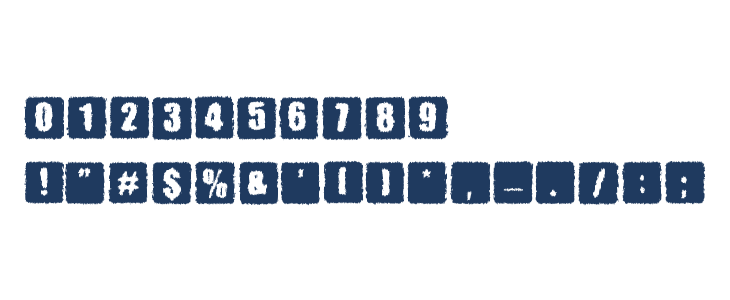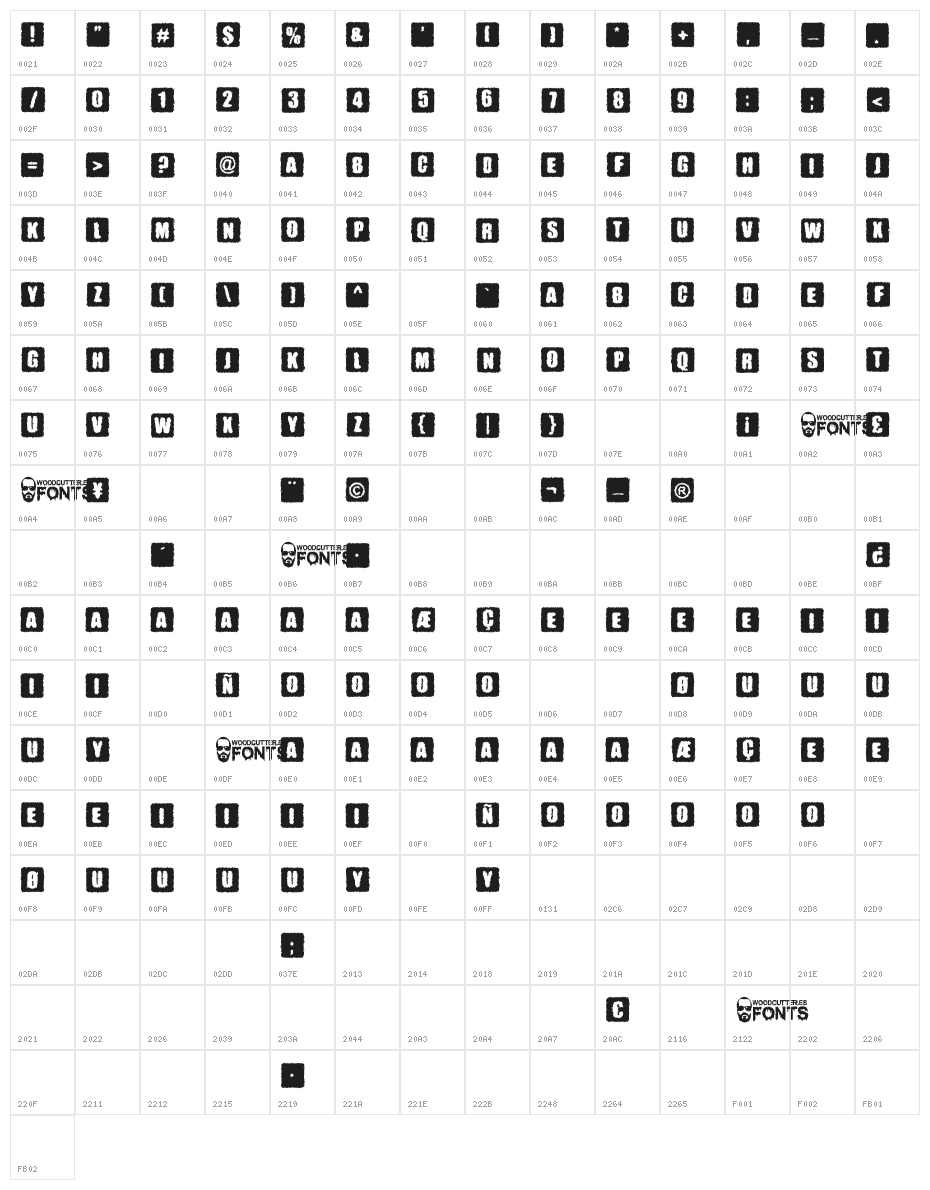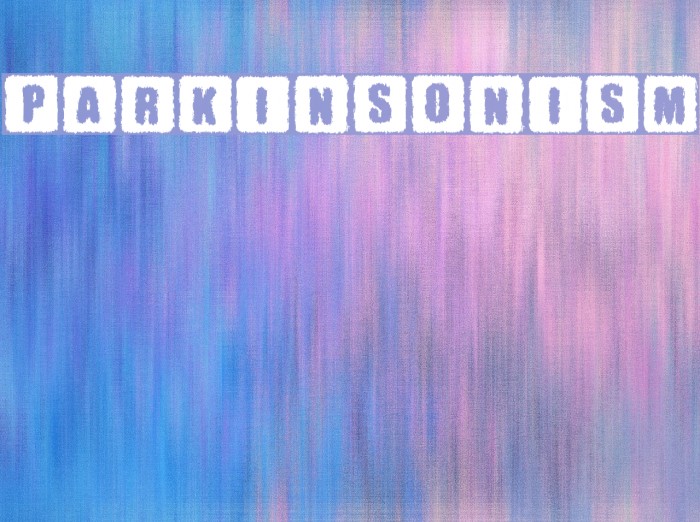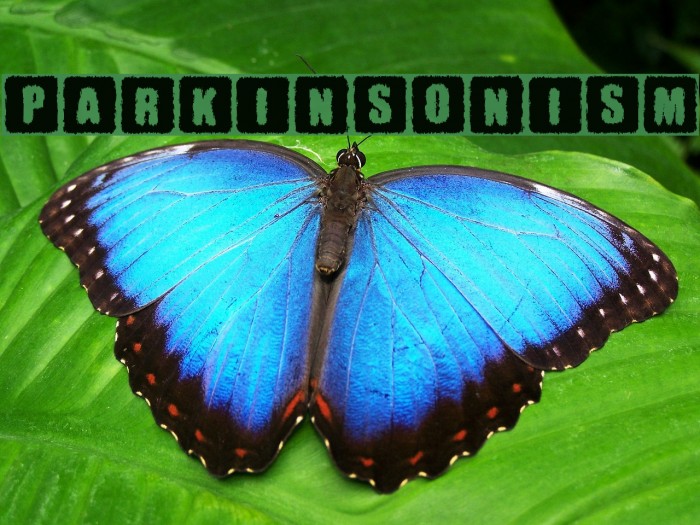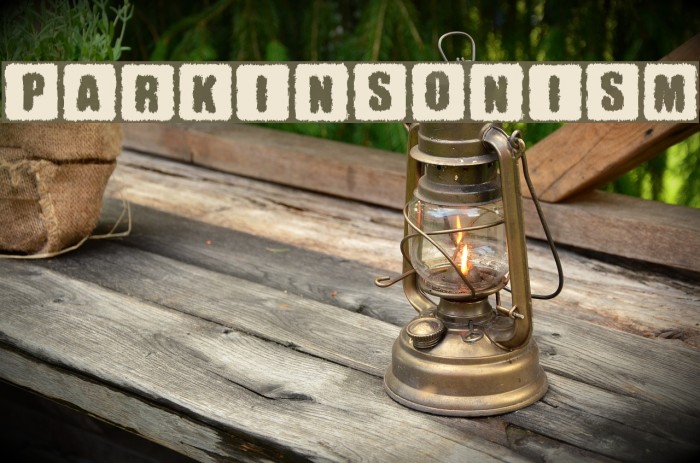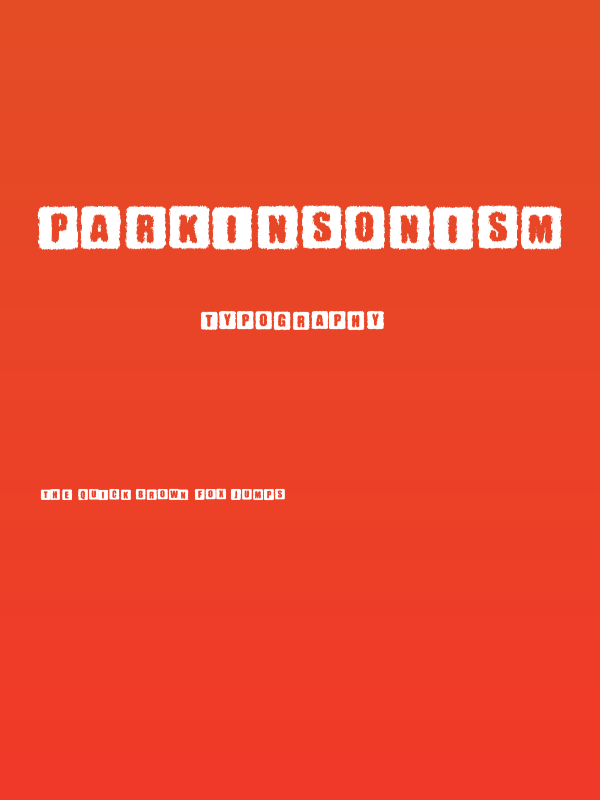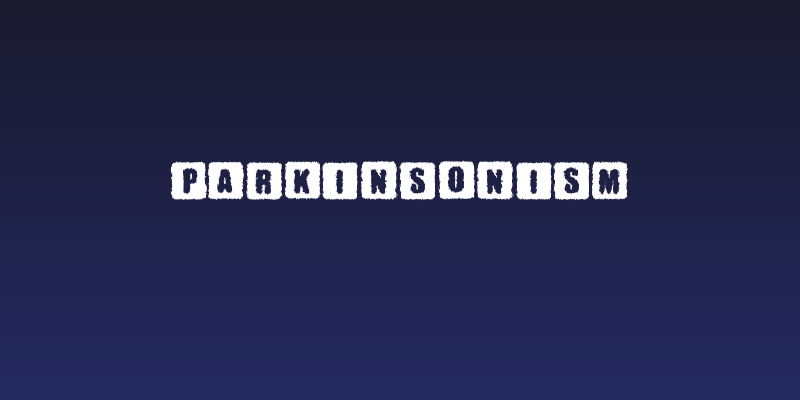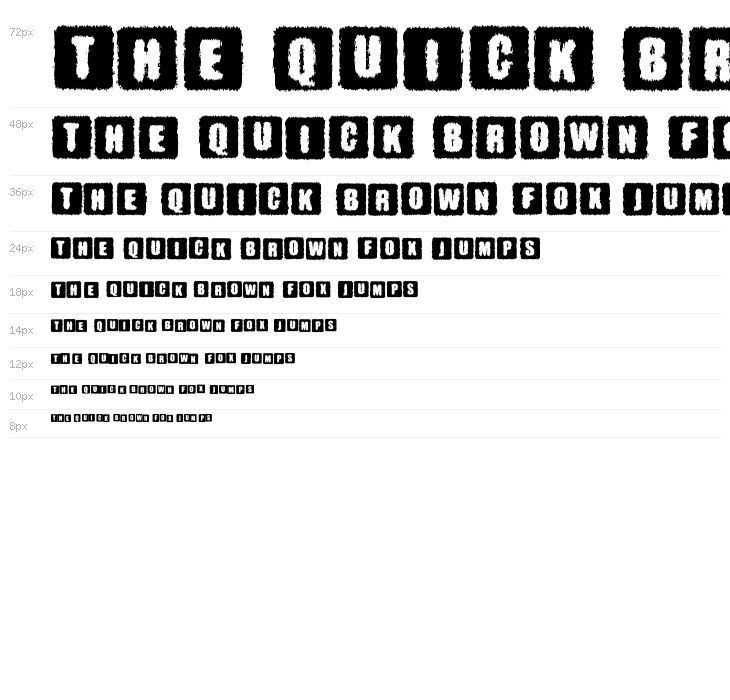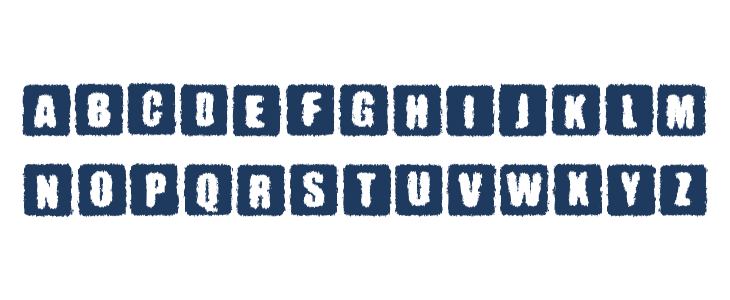
Parkinsonism Font
Parkinsonism Description
This font features a bold, distressed style with a textured, rough edge that gives it a grungy, urban feel. The characters are enclosed in square blocks, creating a stencil-like appearance. Each letter and number is distinct, with a consistent thickness that maintains legibility despite the rugged design. The font's unique aesthetic makes it stand out, ideal for projects that require a bold statement. The uppercase and lowercase letters are similarly styled, maintaining uniformity across the alphabet. The special characters follow the same design principles, ensuring a cohesive look throughout.
| Overall Style | Grunge, Urban |
| Proposed Projects | Ideal for posters, album covers, streetwear branding, and urban-themed designs. |